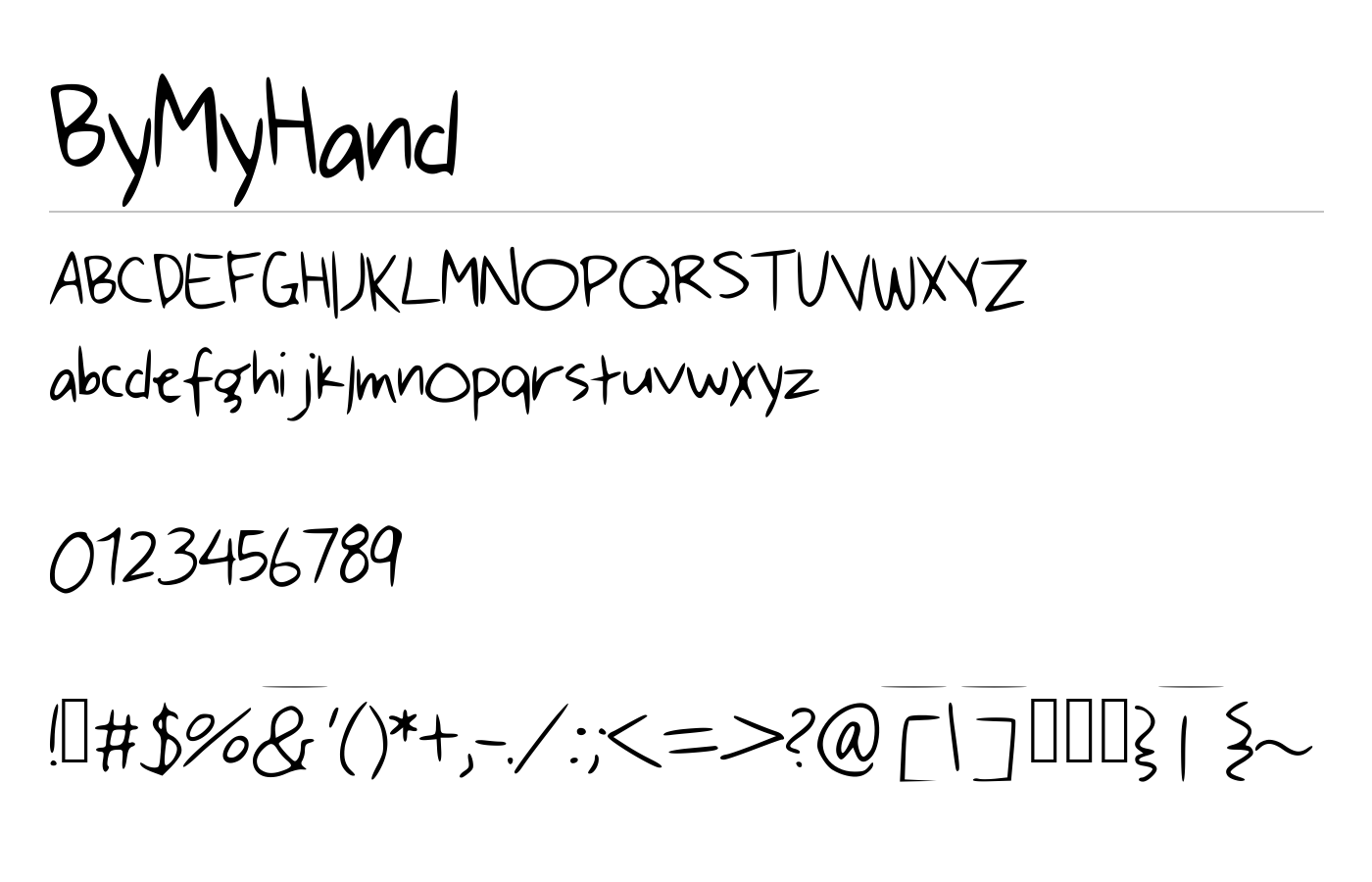
ByMyHand is a casual, handwritten sans serif font that feels friendly and approachable. Its irregular, playful letterforms and natural stroke variations give it an authentic, personal touch, making it ideal for informal designs, kids’ projects, or creative branding that wants to convey warmth and individuality. This font works well in logos, invitations, and any setting where a relaxed, human feel is desired.
ByMyHand Font
About ByMyHand Font